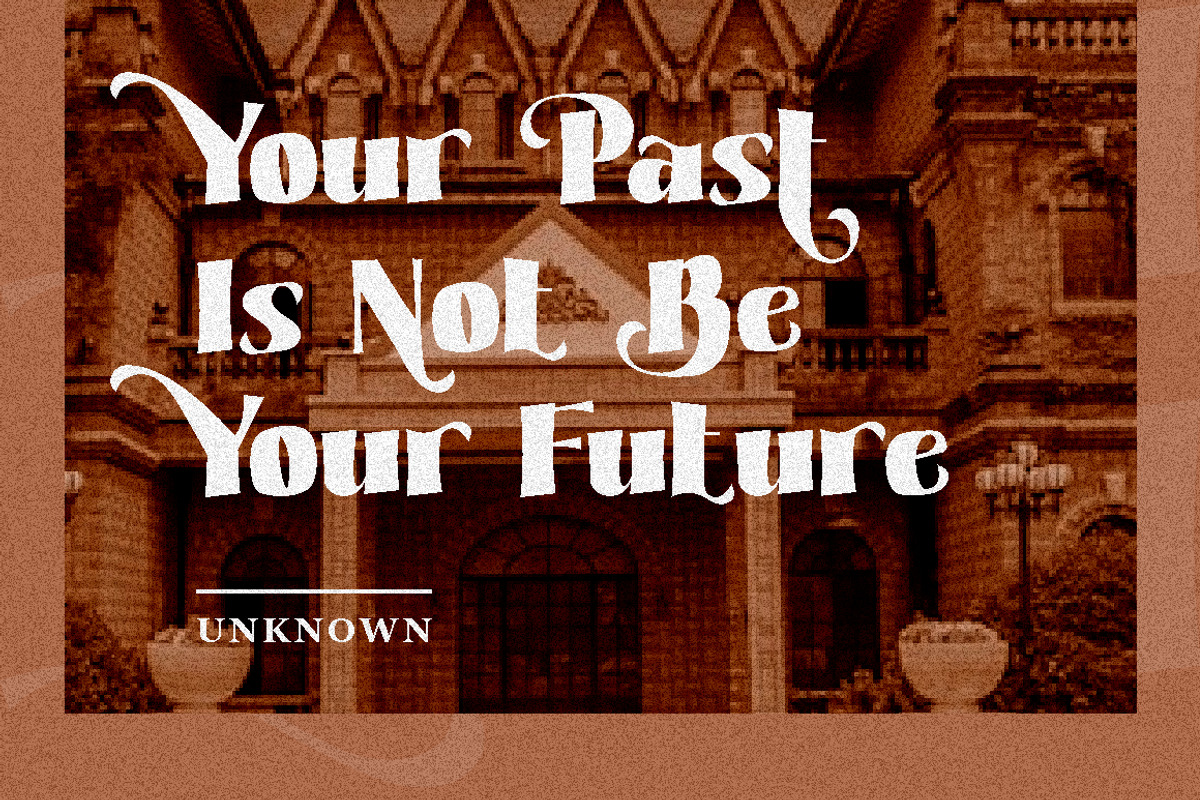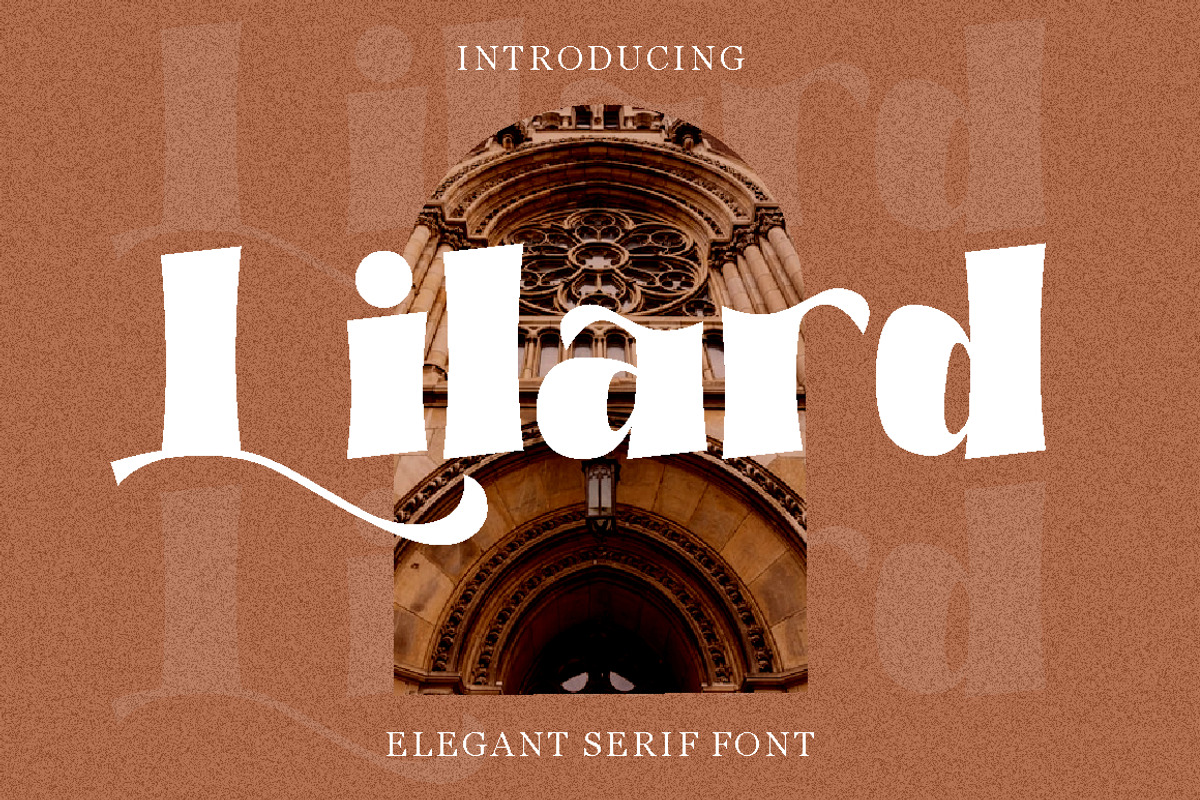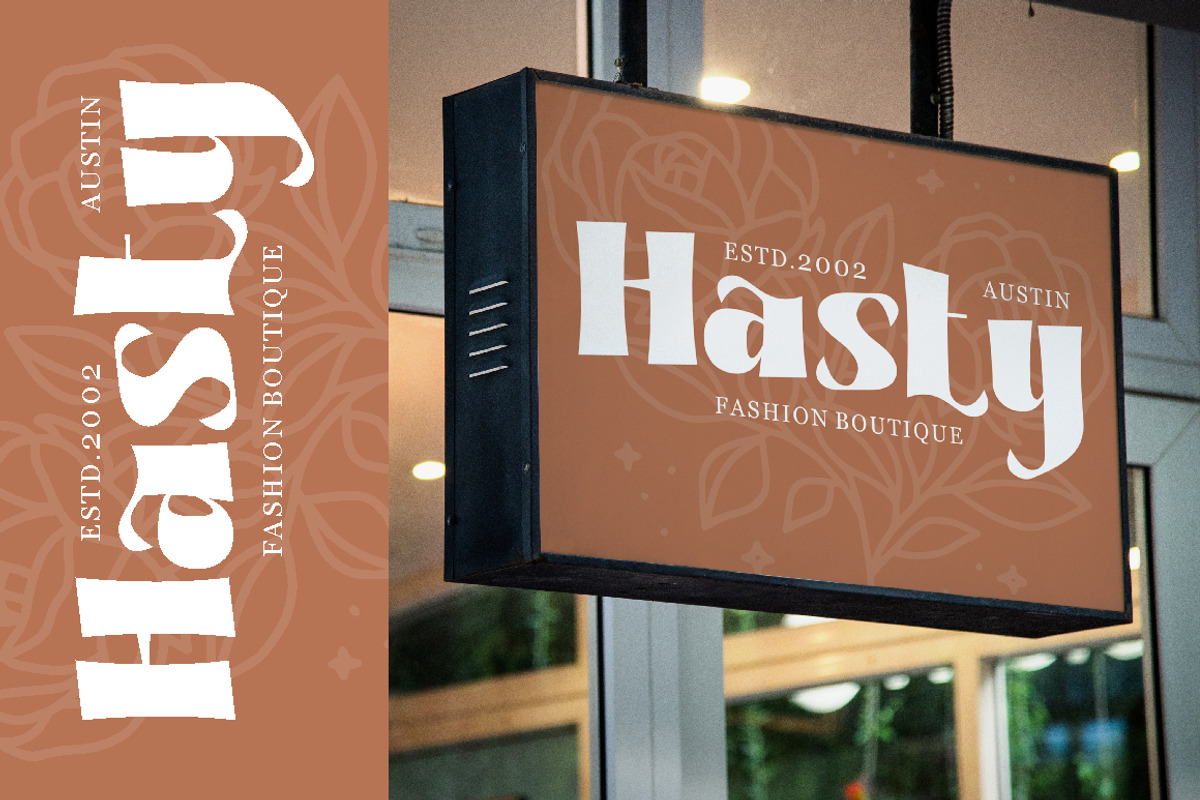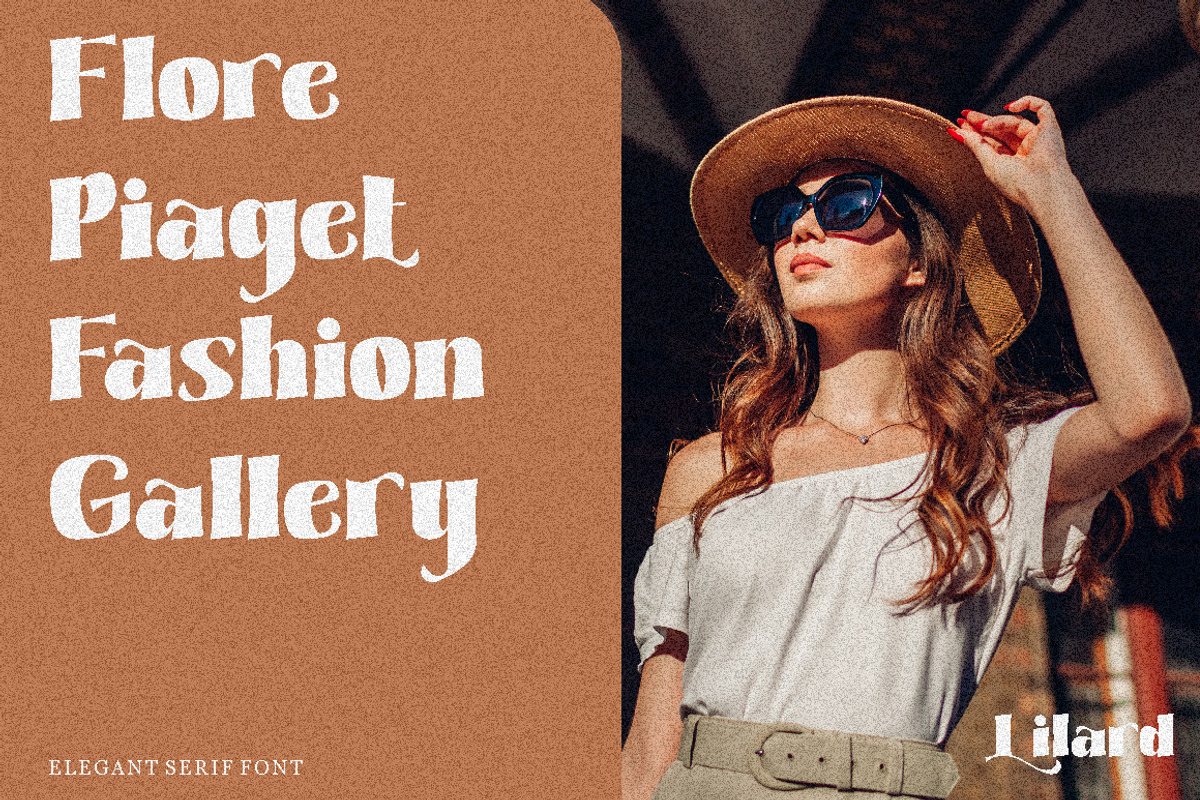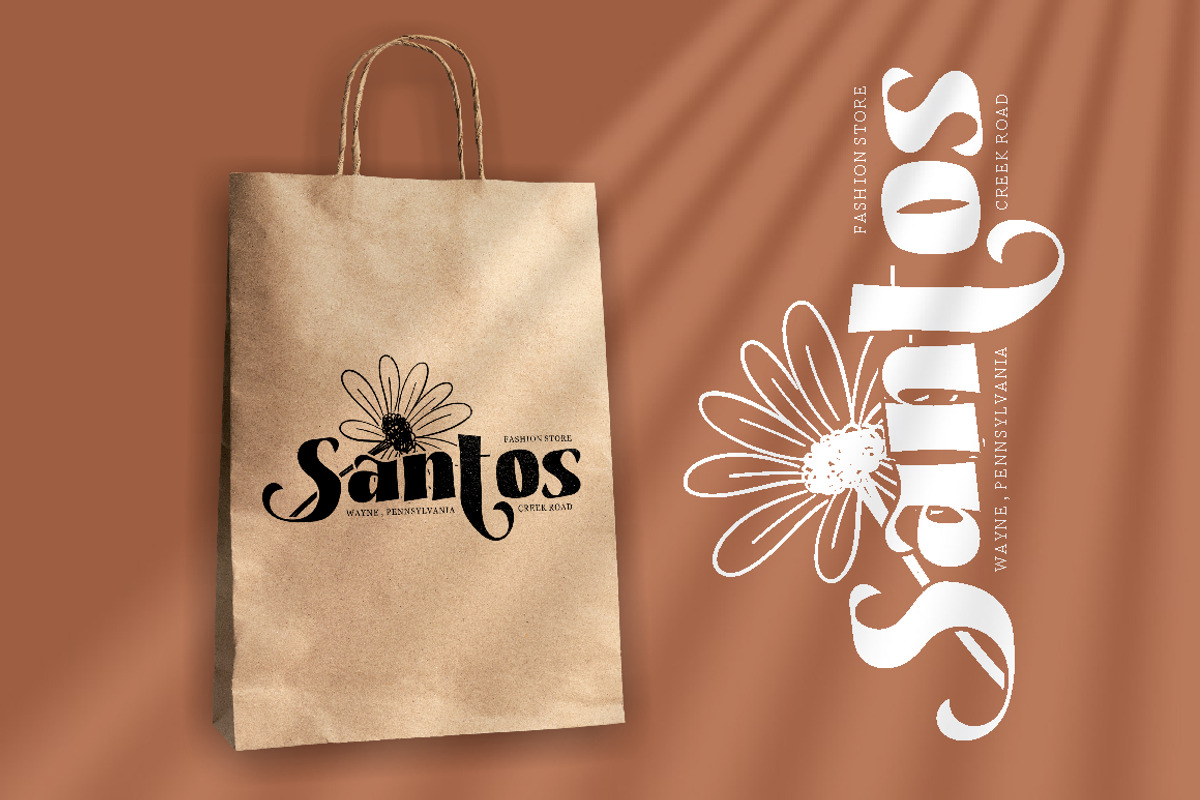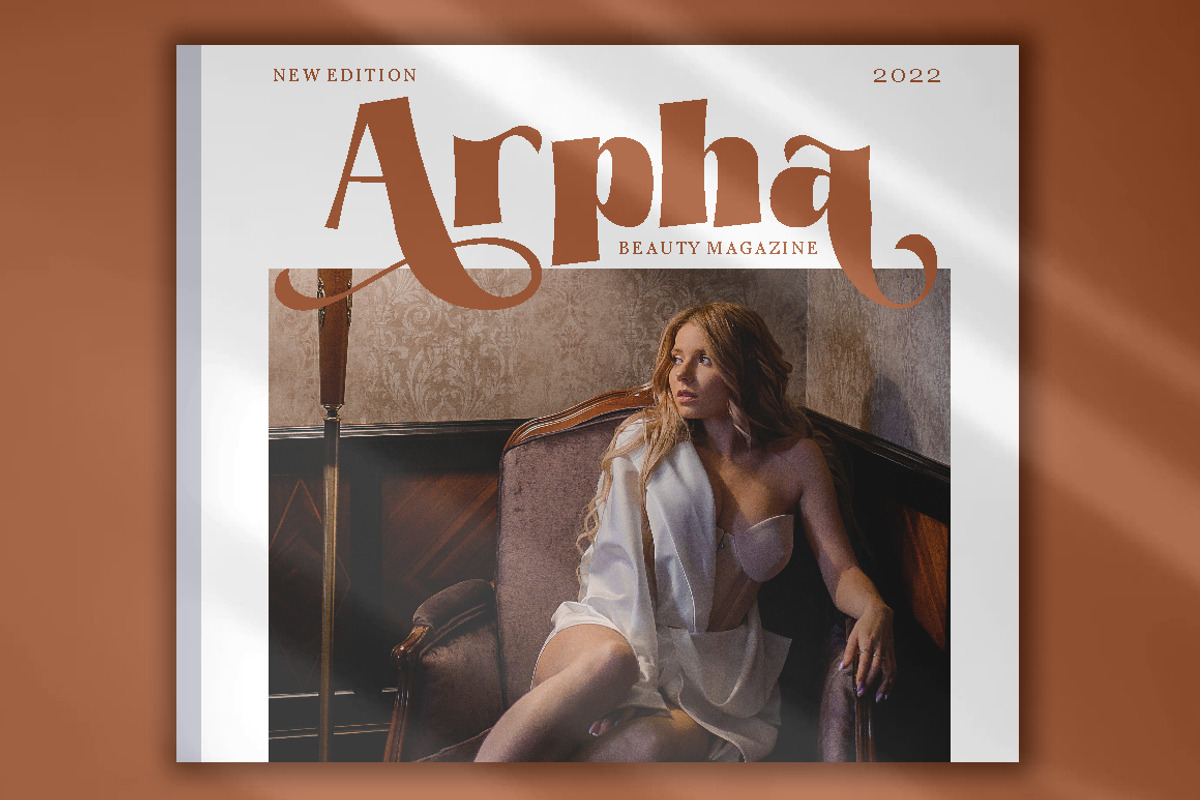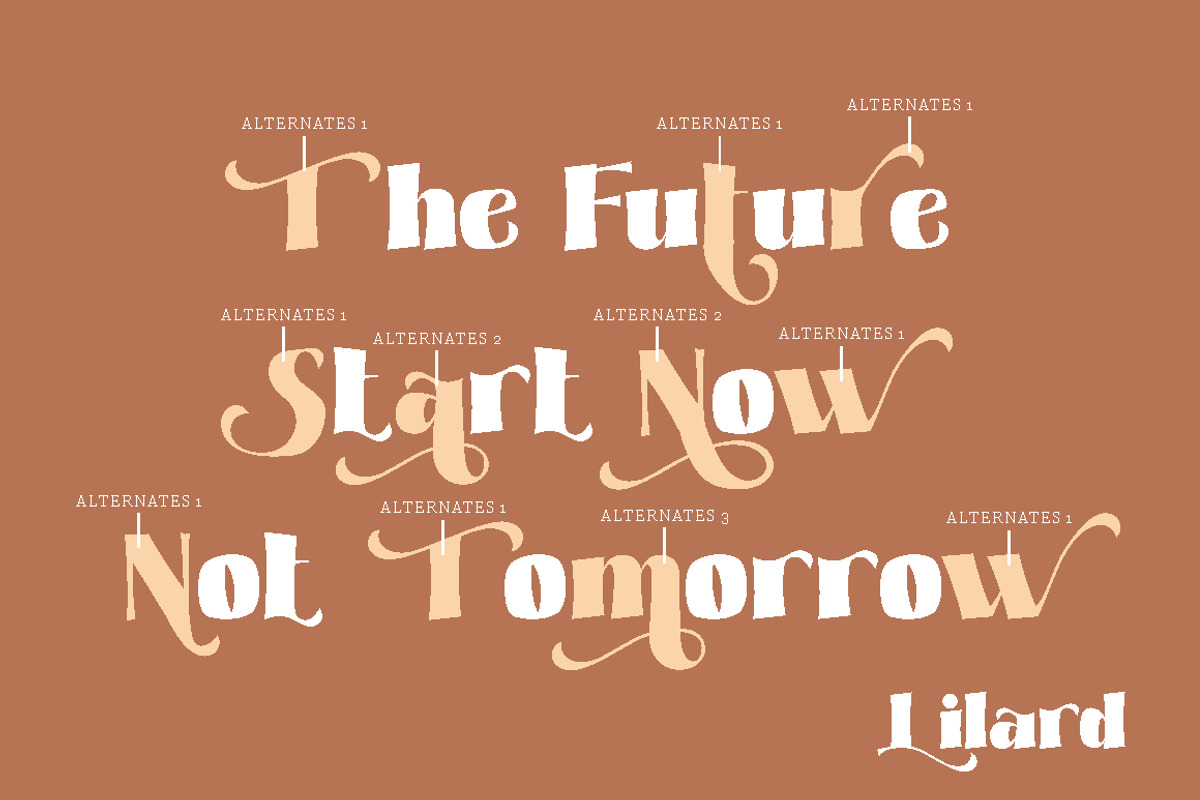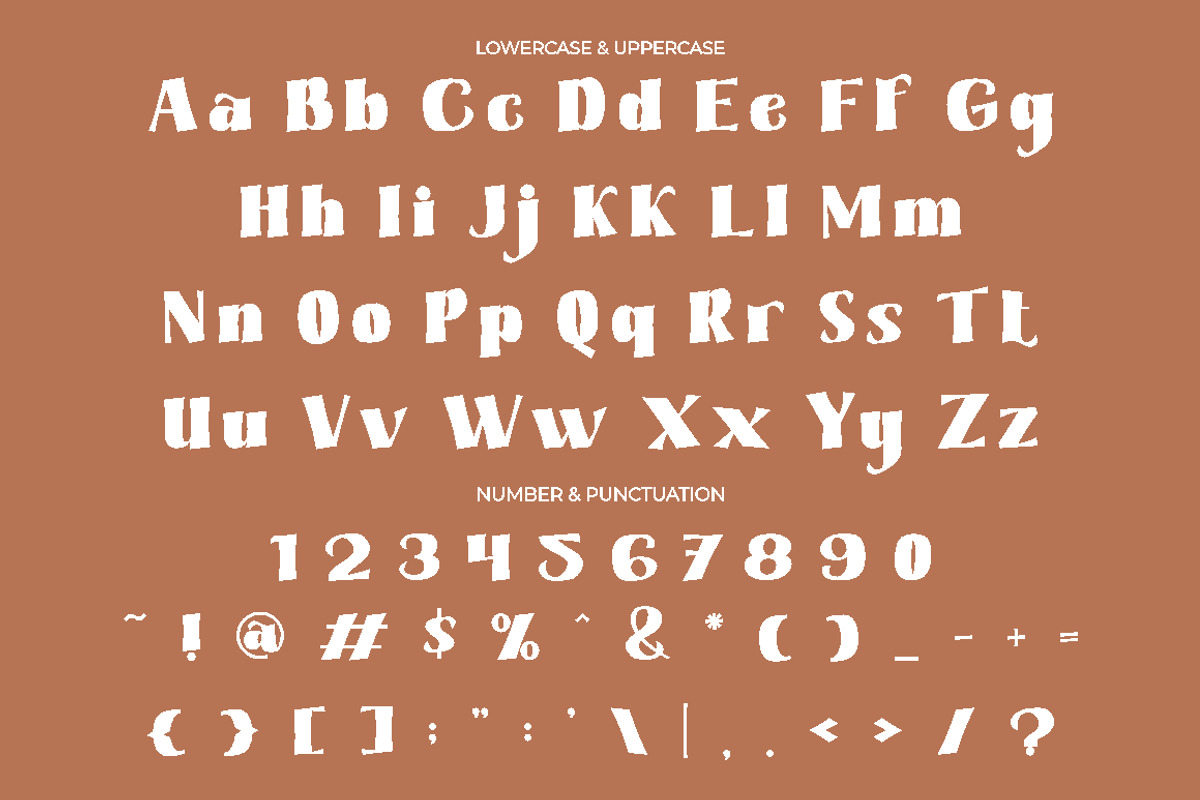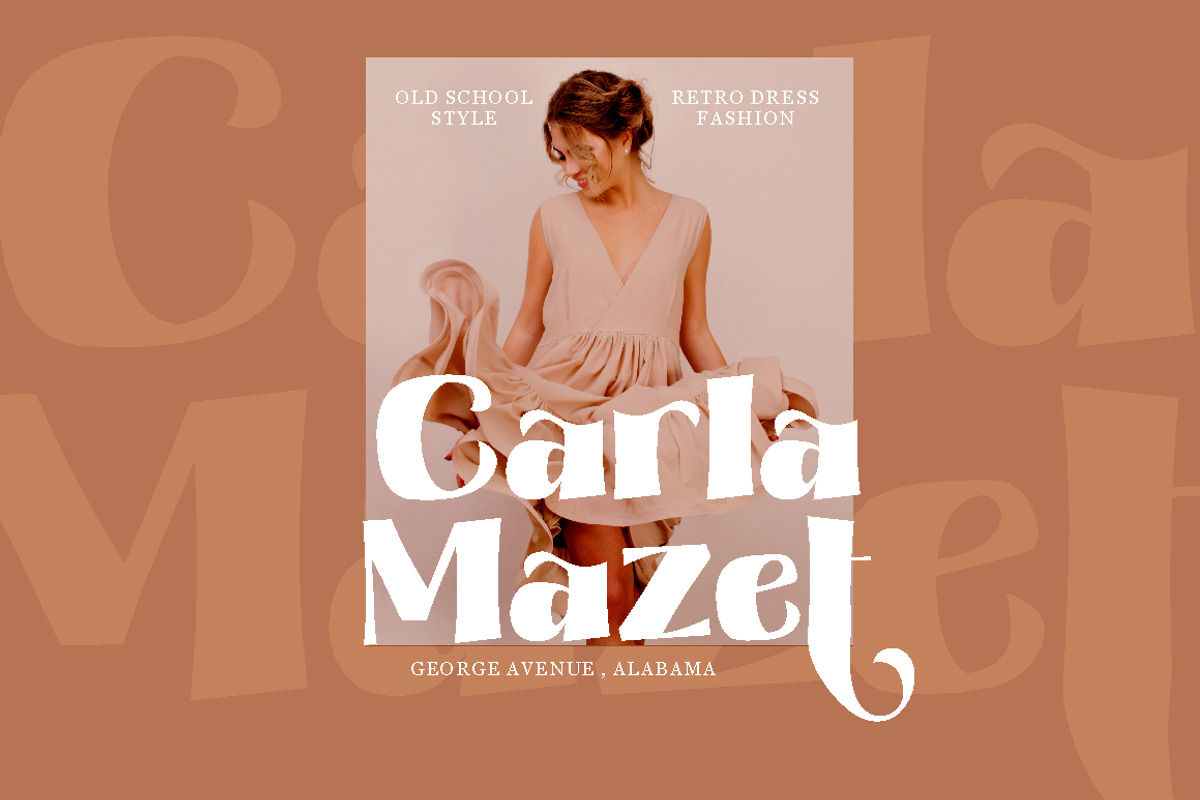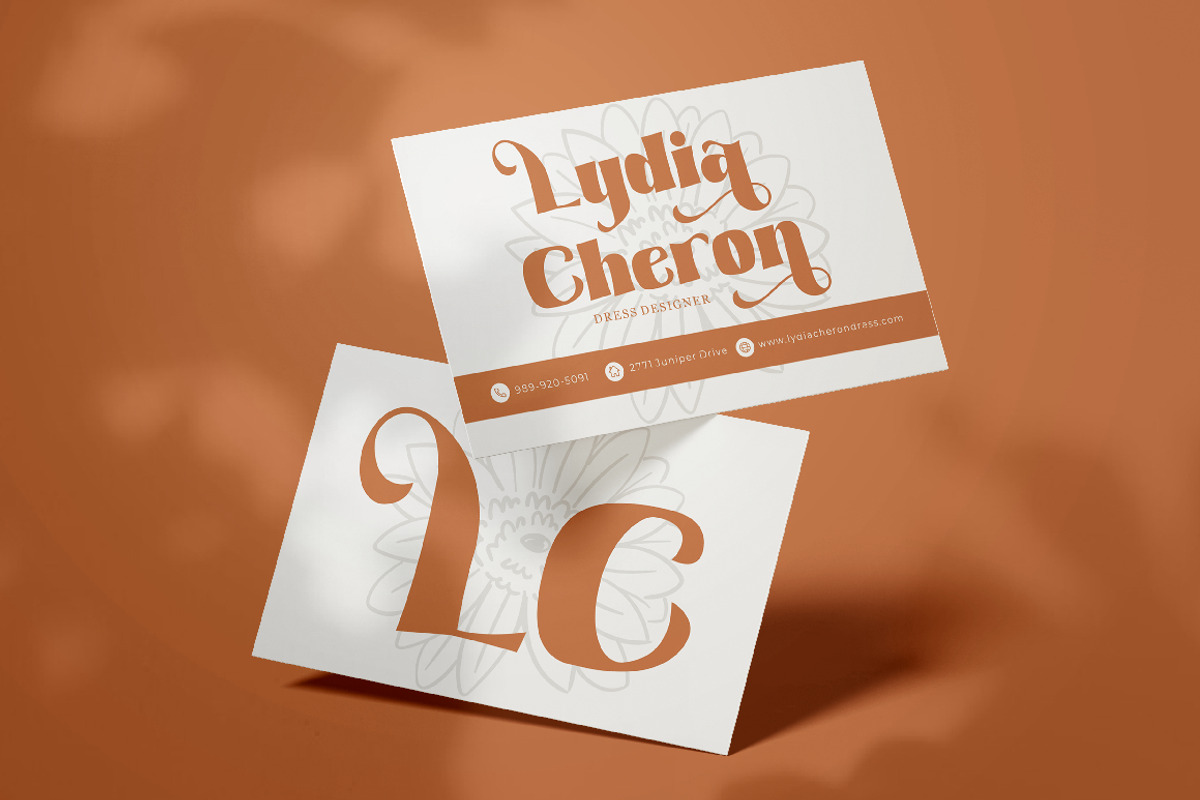
Lilard - Elegant Serif Font
Lilard - Elegant Serif Font is a beautiful typeface that exudes sophistication and grace. The font was designed with the idea of creating a classic and elegant look, while still maintaining a modern and clean feel. The result is a font that is versatile and can be used for a variety of projects such as branding, logos, packaging, photography, and more.
The design of Lilard font is inspired by the timeless and elegant look of serif fonts, but with a contemporary twist. The designer wanted to create a font that would stand out and be memorable, while also being easy to read and understand. The elegant curves and sharp serifs make Lilard a perfect choice for projects that require a touch of elegance and sophistication.
Lilard font is best used for projects that require an elegant and refined look. This font is perfect for use in wedding invitations, business cards, and other high-end print materials. The font works well when paired with other sans-serif fonts, which helps to create a modern and clean feel.
Lilard font comes with a variety of features that make it stand out from other fonts. The font includes uppercase and lowercase letters, as well as opentype features such as alternates and ligatures. Additionally, the font includes numbers, punctuation, and symbols, making it a versatile choice for a variety of projects. The font also supports multiple languages, making it a great choice for international projects.
If you're looking for a font that is elegant, sophisticated, and versatile, Lilard - Elegant Serif Font is the perfect choice. Its unique design and features make it an ideal choice for a variety of projects. Use this font to add a touch of elegance and refinement to your designs and make them stand out.
In summary, Lilard - Elegant Serif Font is a beautiful and elegant font that is perfect for high-end projects. Its unique design, features, and versatility make it a great choice for a variety of projects, including branding, logos, packaging, photography, and more. With its opentype features, multiple language support, and easy-to-use formats, Lilard is sure to become a go-to font for designers looking for an elegant and refined look.